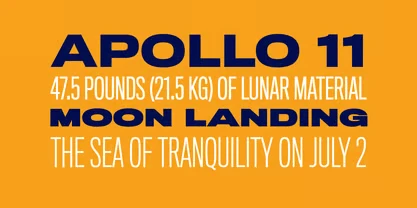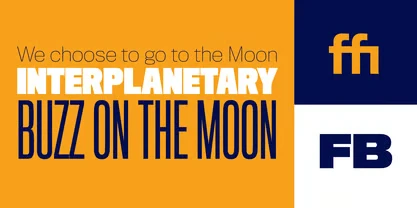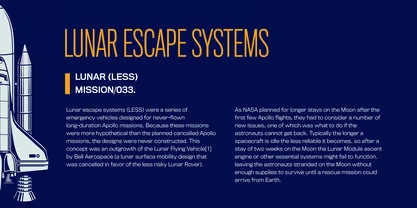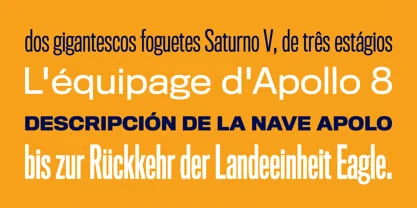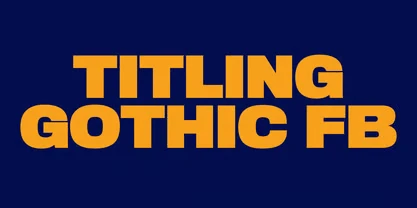
About Titling Gothic Font
I’m a typographer and graphic designer, and I love exploring typefaces that bring both style and strength to a project. While working on a publication redesign, I found the Titling Gothic Font in a Font Bureau collection. I was looking for a gothic typeface with versatility and a bold visual presence. Once I tested it in headline mockups, I knew it was the right fit. Its range of styles gave me plenty of options to create hierarchy without leaving the same font family. This review is based on real-world use, not just theory, so you can trust the insights here.
What Is the Titling Gothic Font?
Titling Gothic FB Font is a large sans serif font family designed by David Berlow and published by Font Bureau. It contains 49 styles, forming an immense series of nearly fifty variations. The design draws inspiration from the century-old favorite ATF Railroad Gothic, a typeface known for its tall, powerful letterforms.
Originally started as a relative of Berlow’s Rhode family, Titling Gothic took its own path to become a distinct, modern typeface. Released in 2005, it quickly became a favorite for U.S. publications. Major names like the Los Angeles Times and Gentleman’s Quarterly began using David Berlow’s series to unify the structure of headlines.
The wide range of styles in Titling Gothic FB offers designers flexibility. From narrow to wide letterforms, each style is crafted to maintain visual strength. It’s a san serif design that balances character and utility, making it a reliable tool for both print and digital work. With its connection to historic type design and contemporary publishing, it blends tradition with modern needs seamlessly.
Features of the Titling Gothic Font
The Titling Gothic Font stands out for its sheer variety. With nearly fifty styles, it covers an incredible wide spectrum of options. This includes weights and widths that make it adaptable for everything from tight, compact headlines to large, expressive titles.
The character set is extensive, with support for a broad range of languages. Each style maintains consistency in its design, so you can combine them without losing a unified visual identity. Its serif-free form keeps it modern, while the influence from ATF Railroad Gothic gives it a confident presence.
It’s also highly compatible across platforms. Whether you are working on desktop publishing, web applications, or large-format printing, it scales cleanly. The font utility lies in its ability to handle both visual impact and practical readability.
The Titling Gothic Font is ideal for headlines in newspapers, magazines, and editorial layouts. Its bold forms capture attention, while the range of styles lets you create variation without changing the typeface.
It works beautifully in branding projects for businesses that want a confident, modern design. In packaging, the clean lines and strong stance make it effective for high-impact logos and product titles. The wide spectrum of options also makes it suitable for event posters, digital ads, and motion graphics.
For font pairings, Titling Gothic complements minimalist serif or geometric sans fonts well. This balance makes it a solid choice for both professional publications and creative campaigns.
Its versatility means you can use it for corporate presentations, social media graphics, and popular fonts in advertising. Whether in print or on screen, it retains clarity and impact. From monotype collections to adobe libraries, it fits right into professional workflows.
If you need one typeface to handle multiple styles inspired by a historic yet modernized look, Titling Gothic is worth adding to your toolkit.